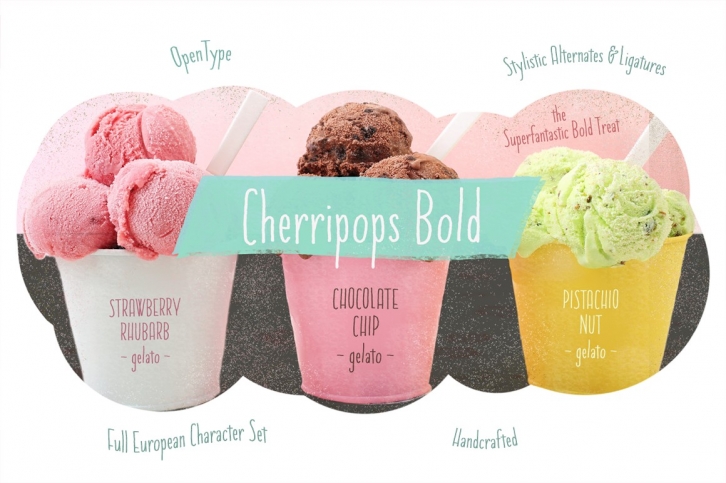
Cherripops Bold is a trendy and unique font with an authentic style. It was designed by Tart Workshop and it's a great choice for creative people who need such a font. It was released on September 29, 2019 and the file size is 13.37 MB. Cherripops Bold will add an organic vibe to any design idea!